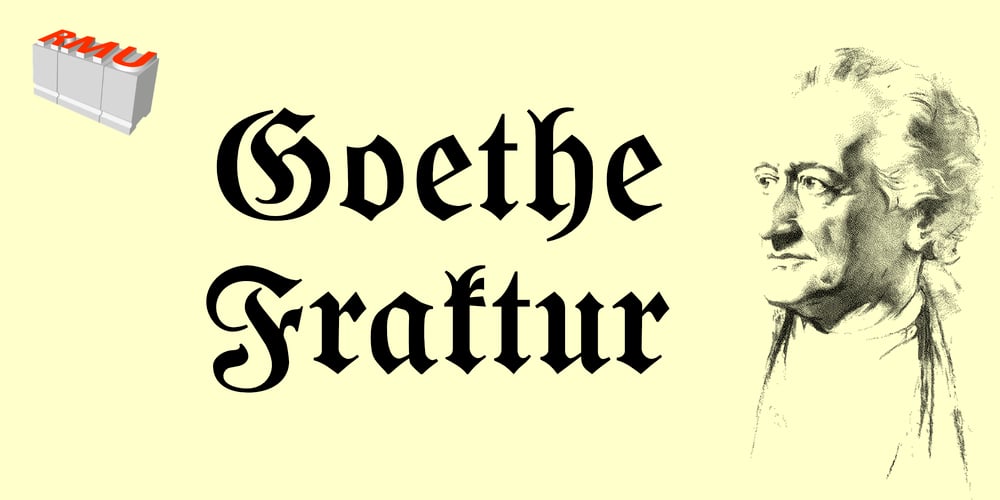
Goethe Fraktur Font Family was designed by Ralph M. Unger and published by RMU. Goethe Fraktur contains 1 styles and family package options. First released by the Woellmer Foundry, Berlin, in 1910, Goethe Fraktur is a strong and legible blackletter font which has been now revived and carefully extended for modern use.To get access to all ligatures, it is recommended to activate both standard and discretionary ligatures. You will find the longs by typing option + b or by using the OT feature historical forms.